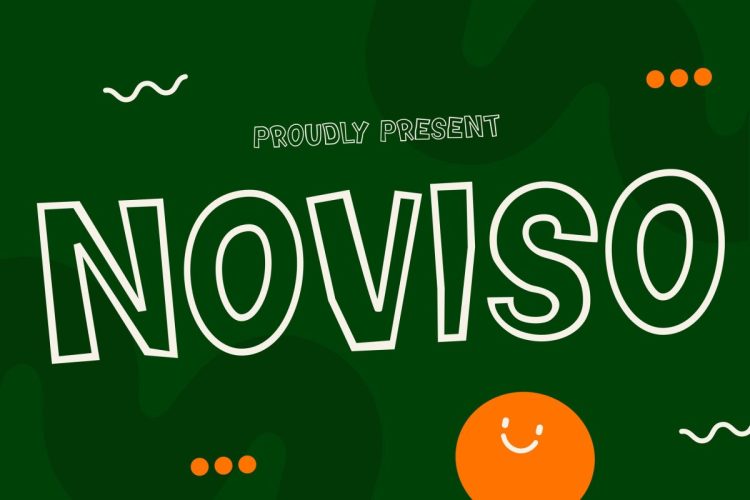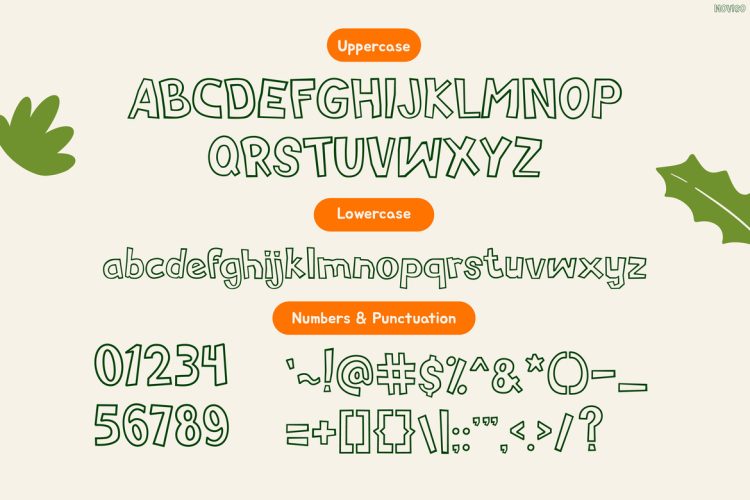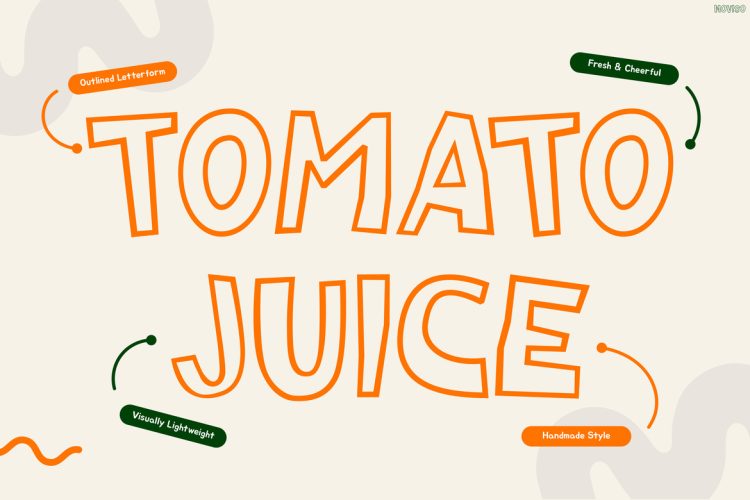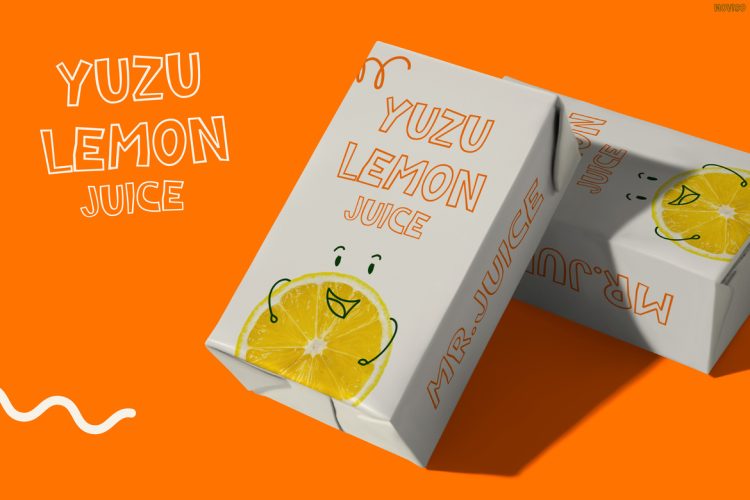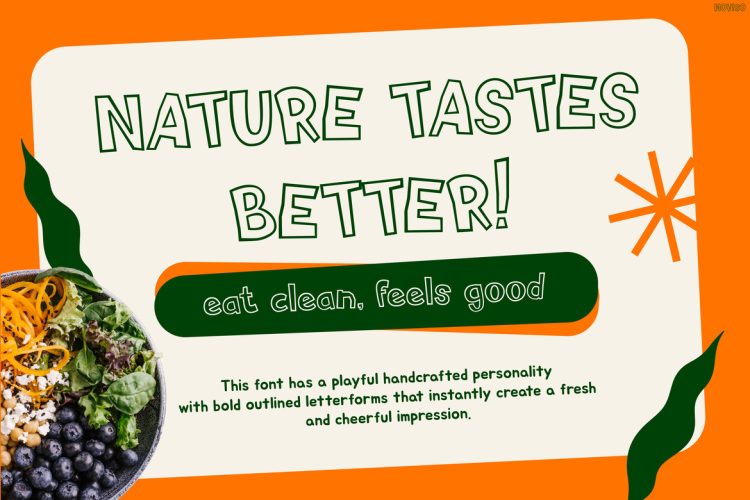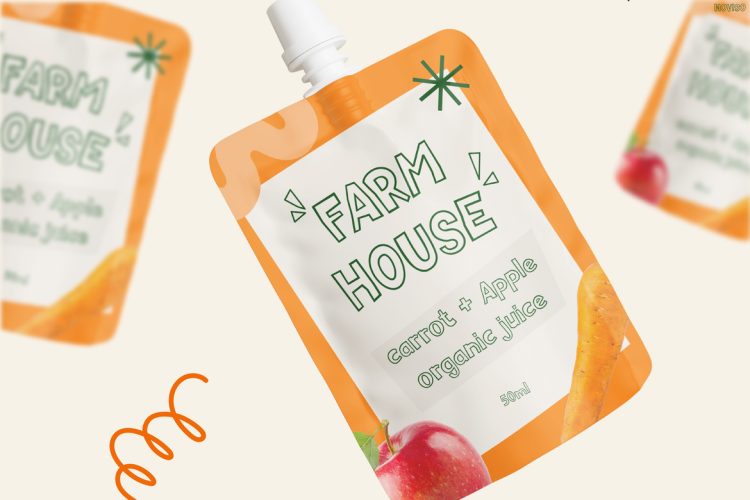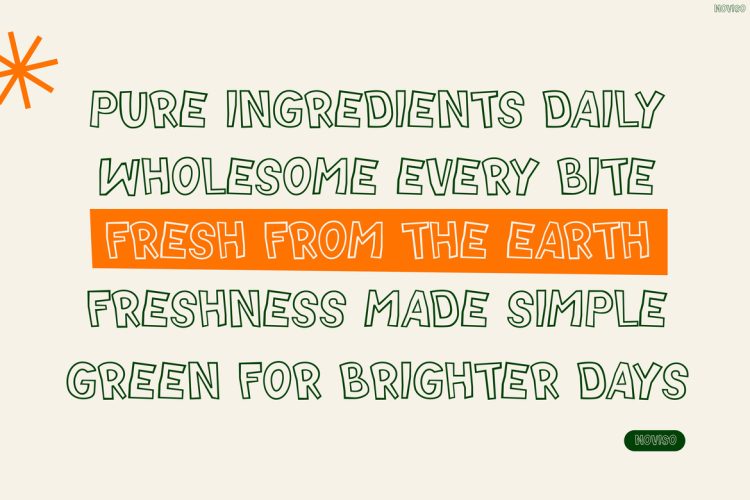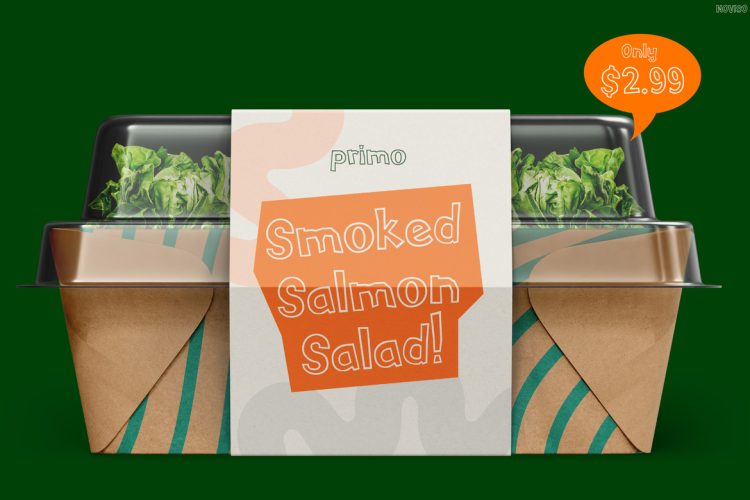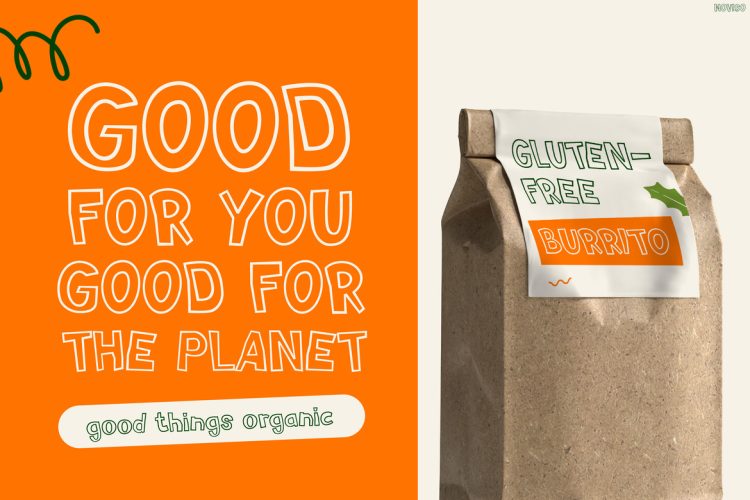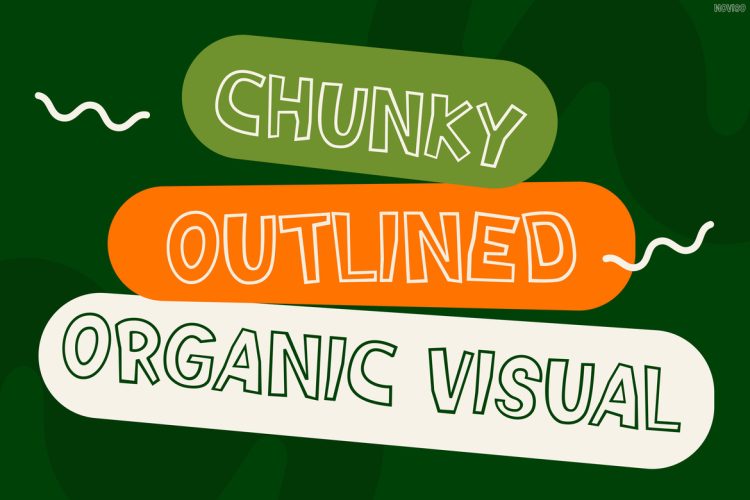
Kids Font Noviso โ Chunky Organic Font with Fresh Playful Vibes
Kids Font Noviso is a bold and playful display font designed to bring fresh organic energy into every design. With its chunky outlined letterforms, quirky hand-drawn style, and fun natural-inspired aesthetic, this font instantly creates a cheerful and eye-catching visual atmosphere. Moreover, the unique character shapes make every headline feel more expressive, modern, and full of personality. In addition, the bold typography keeps your text highly readable, so your designs stay clear across both digital and print projects. Because of its playful organic style, Kids Font Noviso works perfectly for healthy food branding, kids packaging, cafรฉ promotions, and colorful social media content. Furthermore, the outlined structure helps every layout feel more dynamic and visually memorable. At the same time, the fresh handmade vibe gives your branding a warm and friendly appearance that audiences instantly love.
Why Kids Font Noviso Looks So Fresh
Kids Font Noviso combines modern playful typography with fun organic aesthetics. As a result, every word feels lively, energetic, and full of charm. Not only does the font create a strong visual impact, but it also enhances the creativity of your layouts with its bold and artistic style. Additionally, the quirky outlined details make your content feel more unique and trendy. Meanwhile, the clean readability keeps your typography functional for packaging, posters, menus, and promotional graphics. Whether you are designing healthy drink branding, snack packaging, or playful campaign visuals, this font helps every project feel more exciting and engaging. Likewise, the cheerful visual style instantly creates a fun and approachable mood.
- Organic food branding
- Healthy drink packaging
- Kids product designs
- Cafรฉ and juice menus
- Social media graphics
- Creative posters
- Merchandise and apparel
- Fun advertising campaigns
- Snack packaging
- Trendy branding projects
Make Your Designs Feel Fresh and Fun